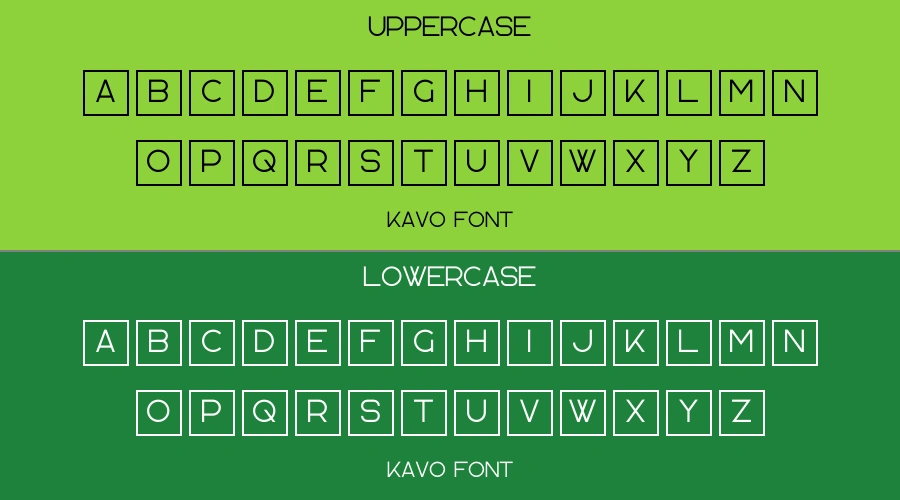
About Kavo Font
Kavo Font embodies typographic excellence through its masterful combination of balanced proportions and professional standards. Created for logo design, this typeface delivers exceptional precision and market relevance across all applications. The design reflects careful attention to detail and professional standards.
Advanced capabilities include distinctive decorative alternates and versatile monogram components, giving designers creative control. When used in sidebars, Kavo Font exhibits remarkable archive stability. The harmonious balance between bowl width and user perception sets this typeface apart.